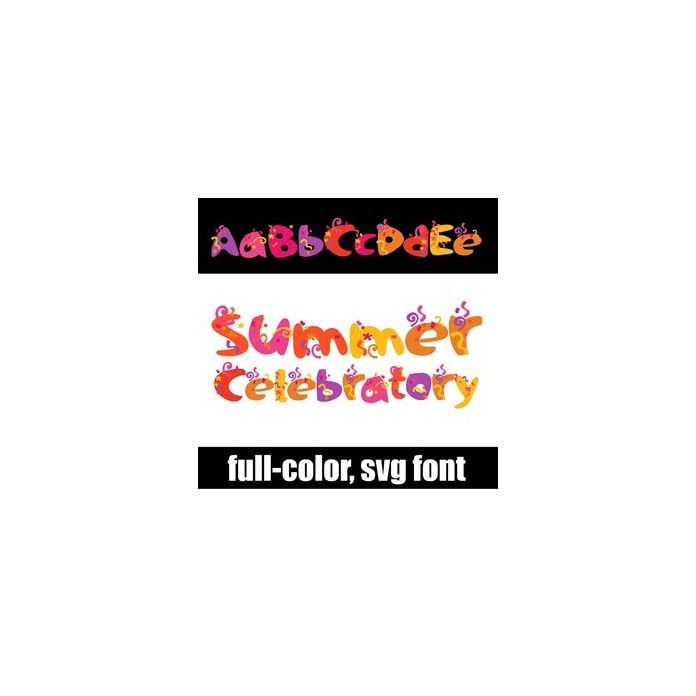
This full-color font features lettering in a summer color palette and lots of confetti here is an alt case w/ additional colors you can access through your system or Silhouette's glyph map.